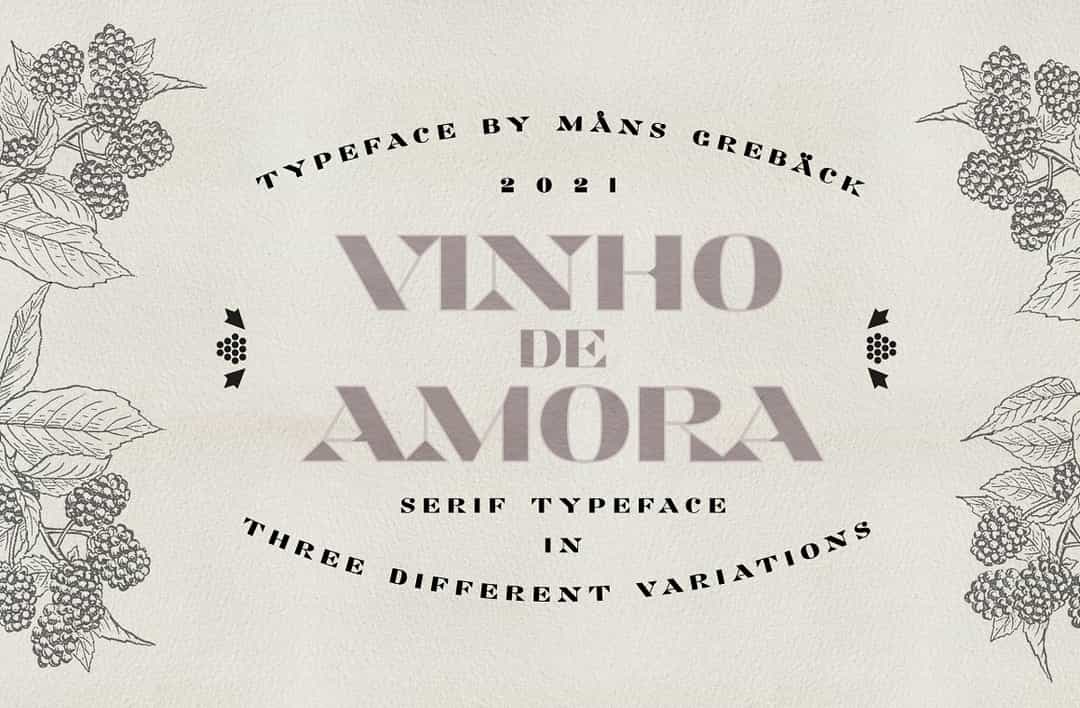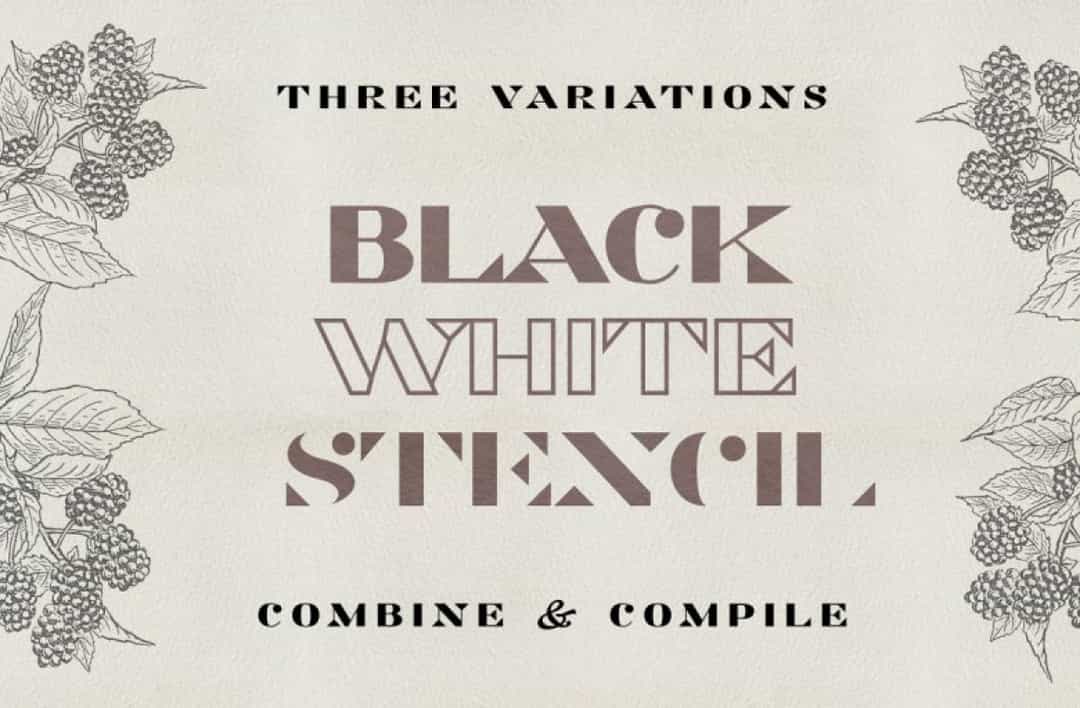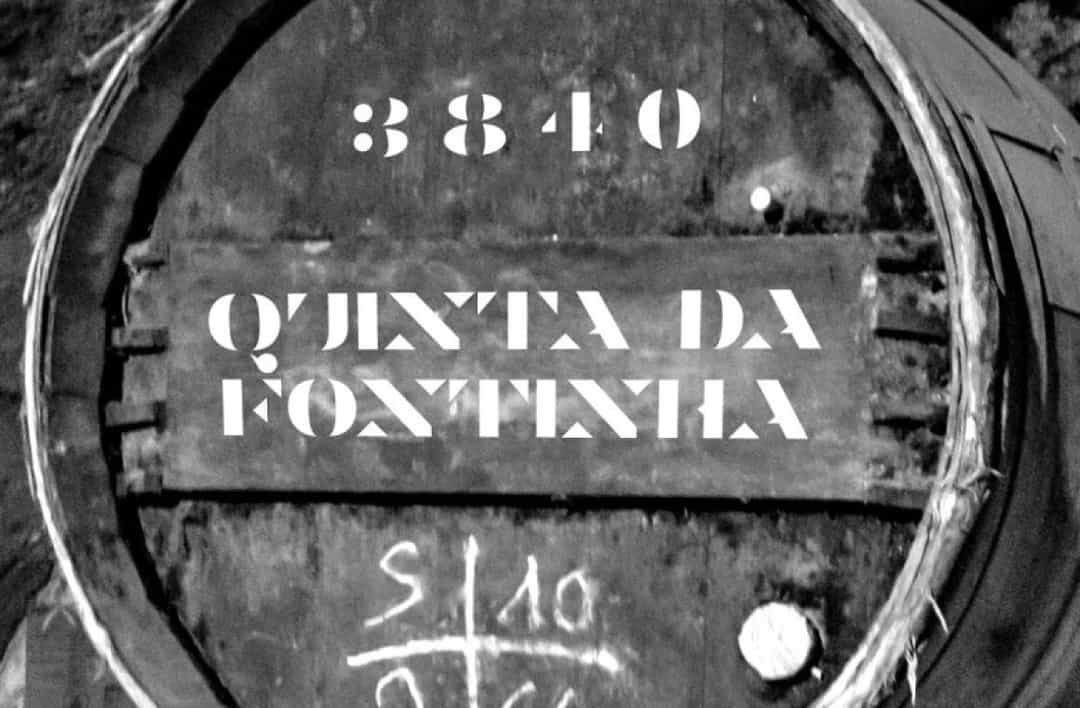
Vinho de Amora is an authentic classic serif font. Created by Mans Greback between 2019-2021, its design was inspired by wine cellars with hand-painted typography for authenticity, featuring its distinctive sharp design with solid legs for support as well as its striking yet broad appearance.